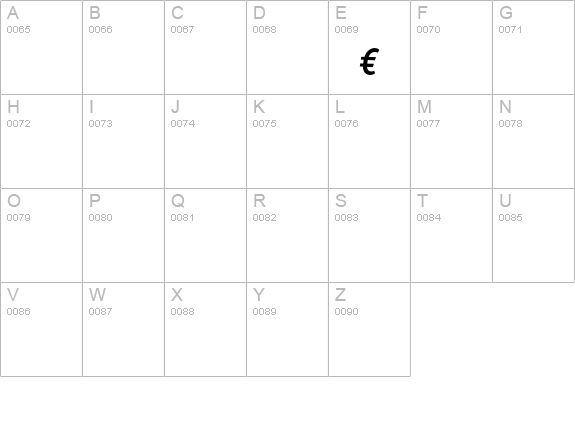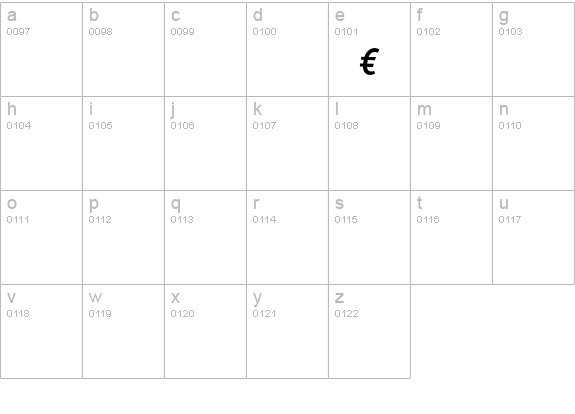
PedestriaMVB-Euro-Medium-Italic is a balanced, medium-weight, italic variant in the PedestriaMVB typeface family \xE2\x80\x94 well suited to sub-headlines, navigation, and balanced editorial work.
Introducing PedestriaMVB-Euro-Medium-Italic, a stunning font that effortlessly combines elegance and modernity. This font is perfect for those seeking a versatile typeface that adds a touch of sophistication to any project. The PedestriaMVB-Euro-Medium-Italic font boasts a harmonious blend of graceful curves and subtle slants, resulting in a unique and eye-catching design. Its medium weight strikes the perfect balance between readability and visual impact, making it suitable for a wide range of applications. Whether you're working on a professional document, designing a website, or creating eye-catching promotional material, PedestriaMVB-Euro-Medium-Italic will effortlessly elevate your work to new heights. Its italicized style adds a sense of movement and flair, making it ideal for conveying a sense of dynamism and energy. But what sets PedestriaMVB-Euro-Medium-Italic apart is that it is freely available to download at FontsMarket.com. Yes, you heard that right - this exceptional font can be yours without any cost. FontsMarket.com offers a vast collection of high-quality fonts, and PedestriaMVB-Euro-Medium-Italic is just one of the many gems waiting to be discovered. So why wait? Enhance your designs with the elegance and versatility of PedestriaMVB-Euro-Medium-Italic. Download it for free at FontsMarket.com and unlock the potential to create stunning visuals that leave a lasting impression.